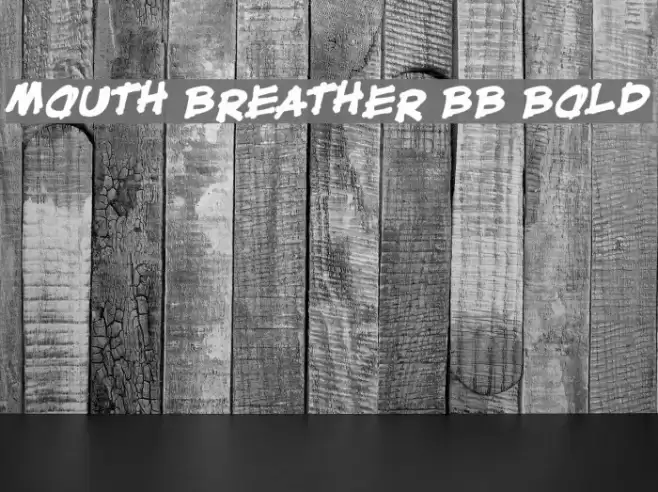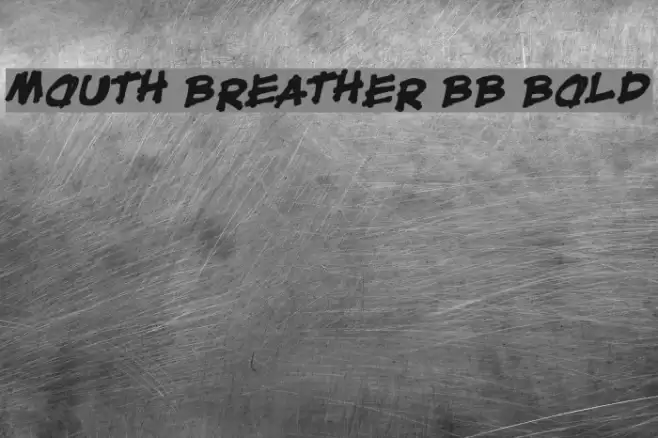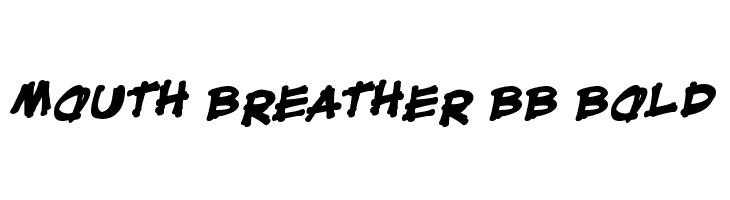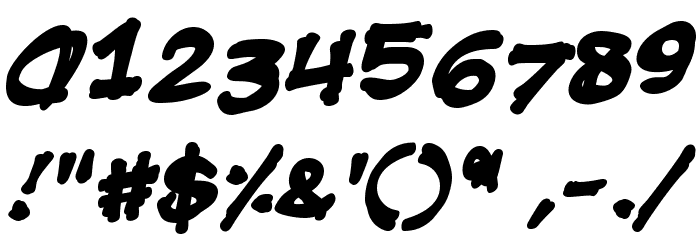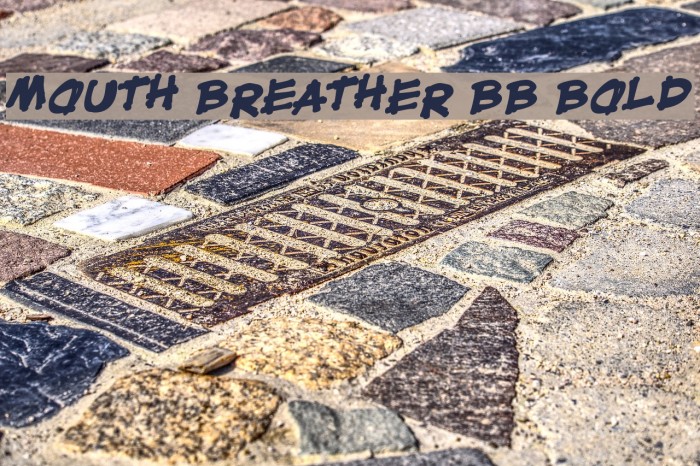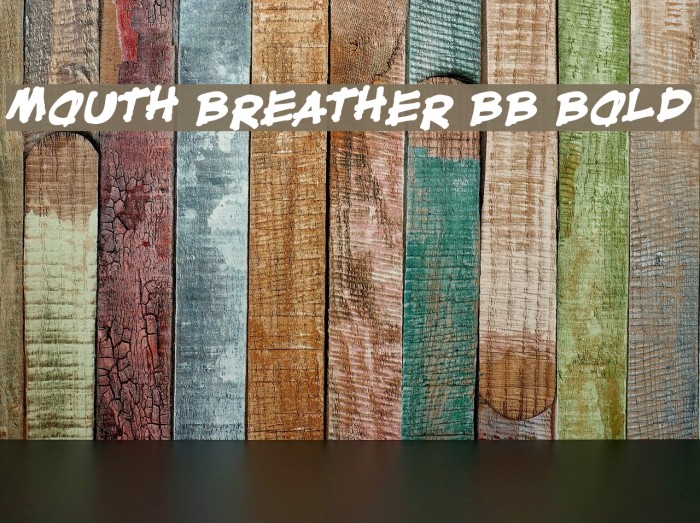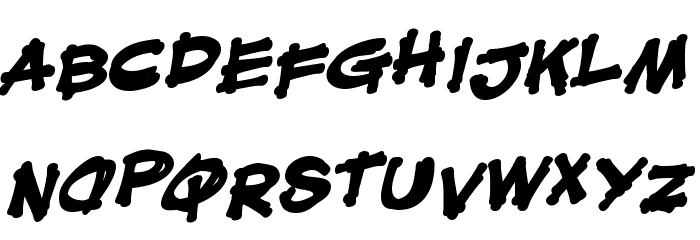
Mouth Breather BB Bold Font
Mouth Breather BB Bold Description
This font features a bold, energetic style with a handwritten appearance. The characters are dynamic and slightly slanted, giving a sense of movement and spontaneity. The strokes are thick and consistent, contributing to a strong visual impact. The uppercase and lowercase letters maintain a cohesive look, while the numbers and special characters are equally expressive. This font's playful and informal nature makes it suitable for creative and casual projects. The overall design is modern and eye-catching, perfect for grabbing attention.
A bold, handwritten-style font with dynamic and energetic characters.
- Proposed Projects: Ideal for posters, social media graphics, branding for creative industries, and playful merchandise designs.
- Category: Handwritten